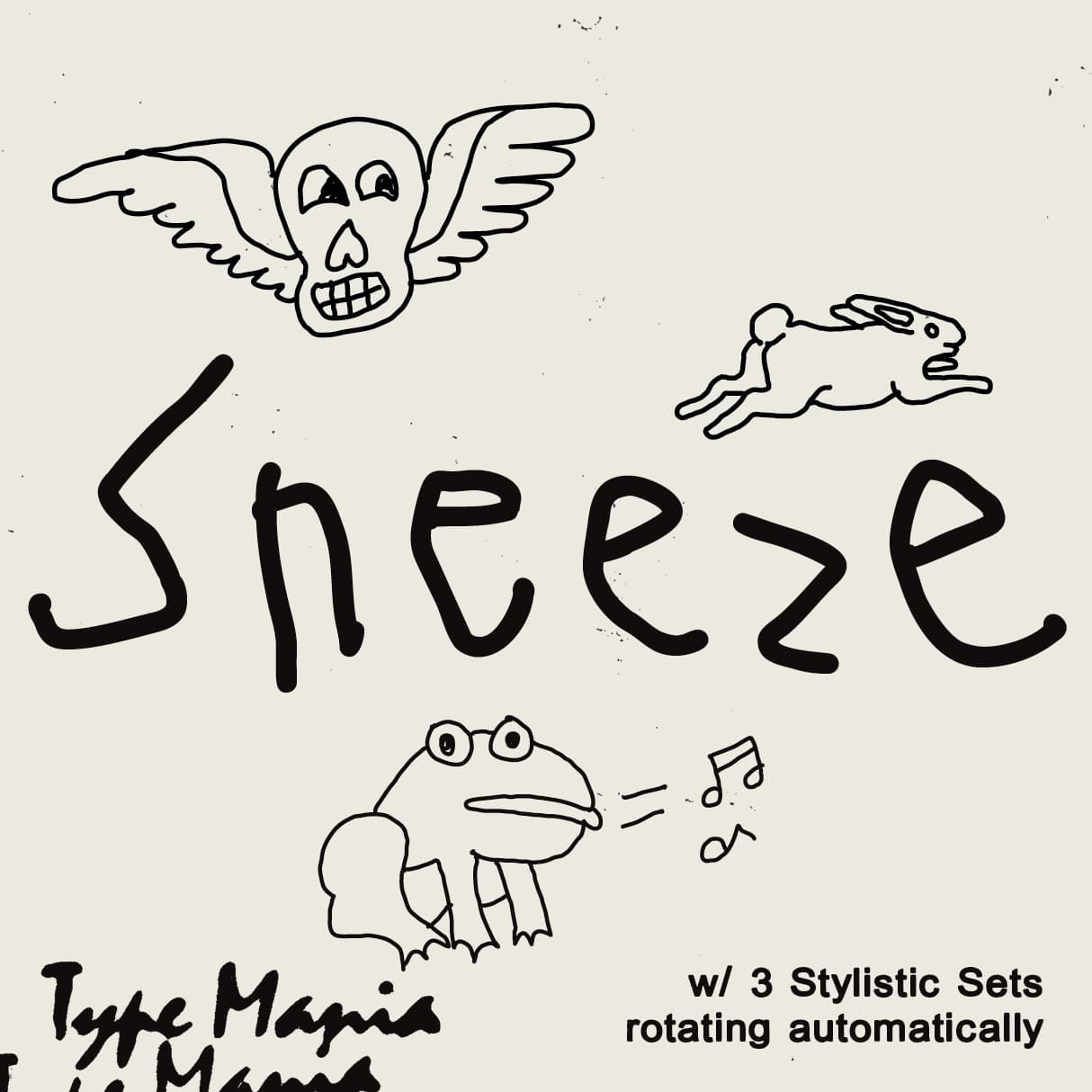
<p>Get familiar with <strong>Sneeze TM</strong> – a rough marker font with no polish. With contextual alternates on, three stylistic sets rotate automatically, giving the text an organic flow. Fight perfect, fight vanity 🤘🤘</p><p></p><p><strong>Zip includes</strong></p><ul><li><p>OTF file</p></li><li><p>TTF file</p></li><li><p>WOFF2 file</p></li></ul><p></p><p><strong>OpenType features</strong></p><ul><li><p>3 stylistic sets</p></li><li><p>The font is programmed to automatically shift between the stylistic sets</p></li></ul><p></p><p><strong>Languages</strong></p><ul><li><p>Basic Latin</p></li><li><p>Western European</p></li><li><p>Euro</p></li><li><p>Central European</p></li><li><p>Pan African Latin</p></li></ul><p></p><p><em>Graphic Design is Easy (with Type Mania)®</em></p>